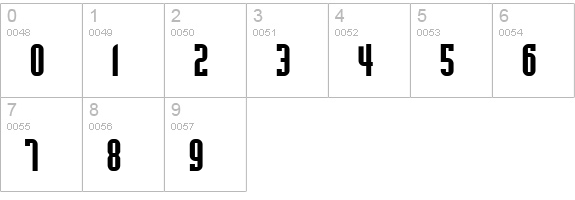
Flintstone Bold Font Details
Flintstone Bold is a strong, high-contrast variant in the Flintstone typeface family \xE2\x80\x94 well suited to headlines, attention-grabbing titles, and strong calls-to-action.
Flintstone Bold font is a bold and dynamic typeface that exudes strength and character. Crafted with a touch of ruggedness and a hint of nostalgia, this font is perfect for projects that require a bold statement. Its distinctive and eye-catching design makes it stand out in headlines, logos, posters, and more. The best part? Flintstone Bold font is available for free download at FontsMarket.com. This means you can easily access this unique and versatile font for your personal and commercial projects without any cost. Embrace the timeless charm of Flintstone Bold font and elevate your designs with its impactful presence.